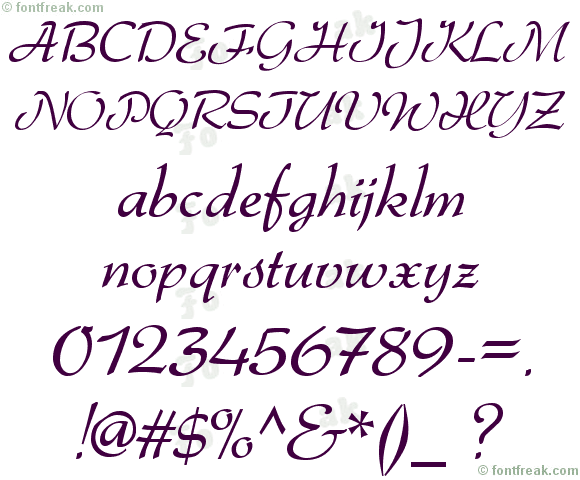
Gabrielle
About Gabrielle
The Gabrielle font, created by Dieter Steffmann in 1999, is a stunning script typeface that blends elegance with legibility. Designed as freeware, it offers a unique opportunity for users to incorporate a touch of sophistication into their projects without any cost. The Gabrielle font showcases fluid, sweeping strokes with a moderate contrast in weight, giving it a graceful yet contemporary appearance. The spacing between characters is thoughtfully balanced, enhancing readability while maintaining an artistic vibe.
This font is particularly well-suited for a variety of use cases that demand a stylish touch. Its refined aesthetic makes it an excellent choice for wedding invitations, where the flowing script can beautifully convey romance and elegance. Additionally, the Gabrielle font is perfect for movie posters, adding a cinematic flair that captures attention. Restaurant menus can also benefit from its inviting appearance, helping to create an ambiance that feels both upscale and approachable. Moreover, content creators and graphic designers can utilize Gabrielle for branding materials, such as logos and promotional graphics, to evoke a sense of professionalism and creativity.
The target audience for the Gabrielle font includes graphic designers, small business owners, and content creators who are seeking to elevate their visual communication. Its versatility allows it to adapt to a variety of contexts, making it a valuable asset for anyone looking to enhance their design projects.